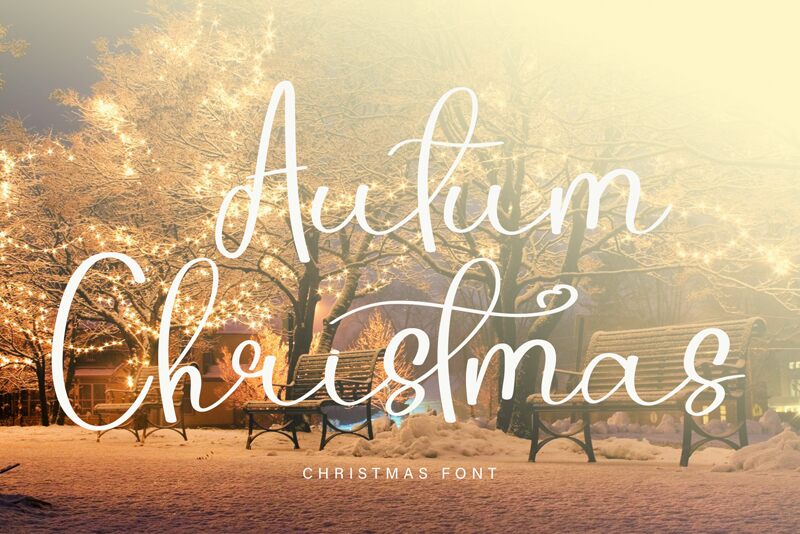
Autum Christmas
Autum Christmas, designed by Etik Fatimah, is a testament to the charm and warmth of handwritten typography. Its semi-light weight lends a delicate and graceful touch to each character, evoking the nostalgia of autumnal notes blended with the joyful spirit of the holiday season. The font's aesthetic appeal lies in its fluidity and natural variance in stroke width, which mimics the subtle irregularities of human penmanship.
The eloquent style of Autum Christmas makes it an excellent choice for personalizing greeting cards, invitations, or any project that seeks to convey intimacy and bespoke craftsmanship. Its handwritten quality adds a personal touch that is both inviting and aesthetically pleasing, ensuring that creative works stand out with authenticity and flair. Whether used in digital media or print, Autum Christmas is poised to infuse your projects with its unique blend of casual elegance and festive cheer.